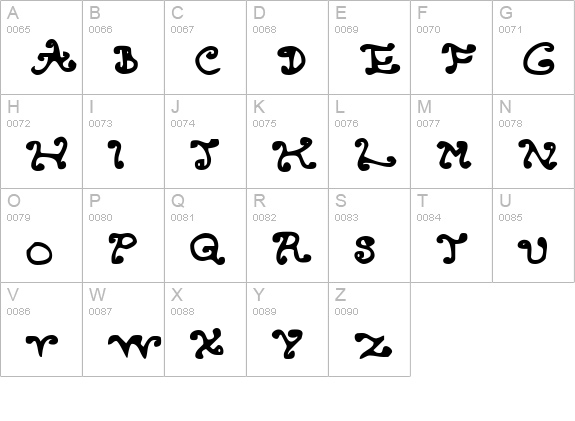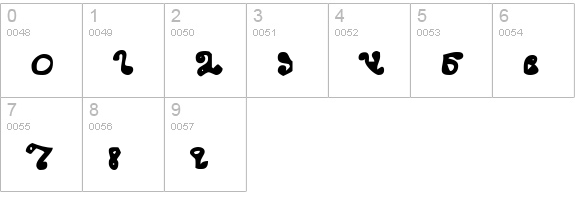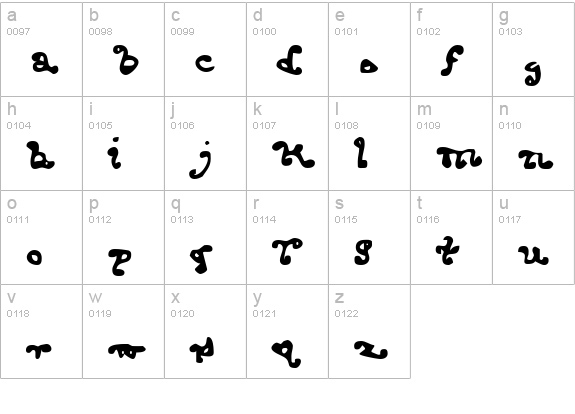
Endcurled Font Details
Endcurled font is a stylish and elegant typeface that exudes sophistication and charm. With its unique curled endings on each letter, this font brings a touch of whimsy and flair to any design project. Whether you're working on invitations, logos, or branding materials, Endcurled font is sure to make a statement. What's more, Endcurled font is available for free download at FontsMarket.com. This means you can easily access this beautiful font and incorporate it into your creative work without any cost. Don't miss out on the opportunity to add a touch of elegance to your designs with Endcurled font. Download it now and let your creativity shine!